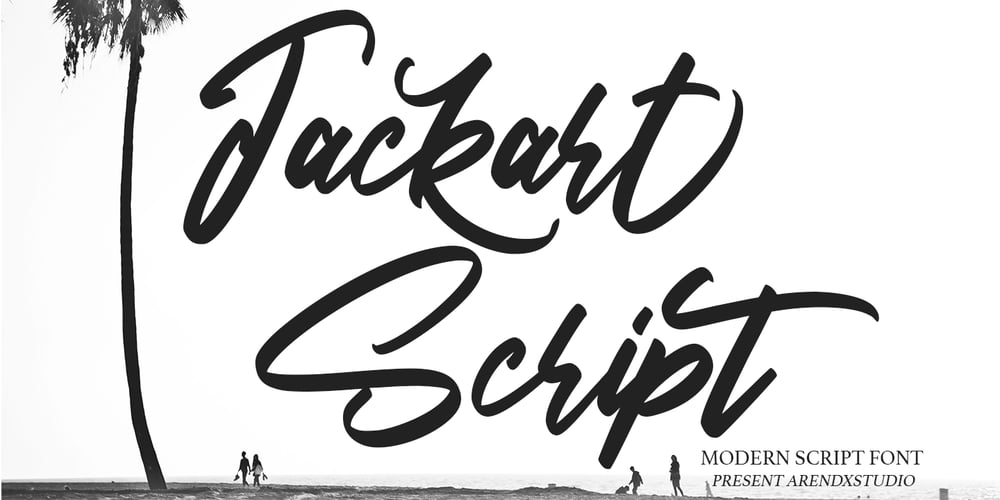
Jackart
Jackart font
Jackart Font Family was designed by Asep Rendi and published by Arendxstudio. Jackart contains 1 styles and family package options. Introducing a Jackart Brush script fonts with sharp and beautiful letters that create fonts that are modern, tendy and elegant. Jackart came with opentype features such stylistic alternates, stylistic sets & ligatures good for logotype, poster, badge, book cover, tshirt design, packaging and any more.Features : • Character Set A-Z • Numerals & Punctuations (OpenType Standard) • Accents (Multilingual characters) • Ligature • Alternate